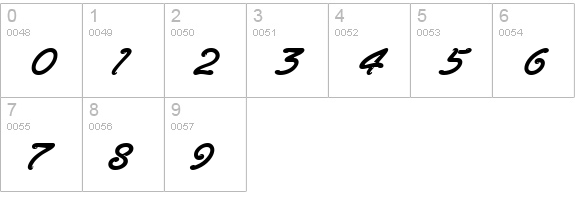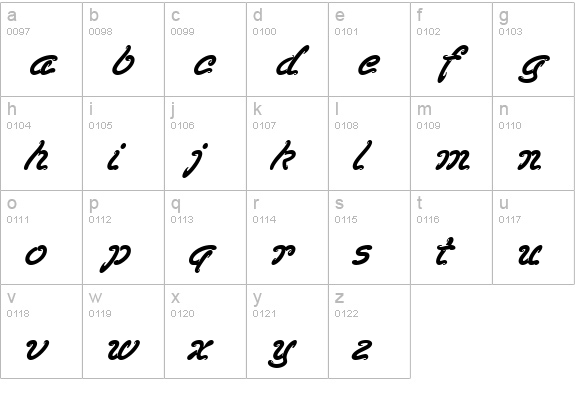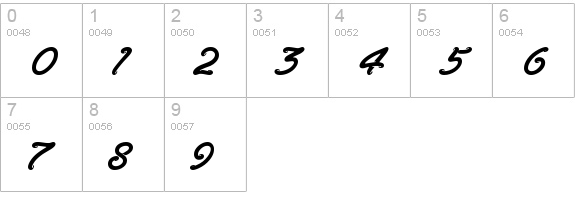
LasVegasD Font Details
Introducing LasVegasD, a stunning and versatile font that effortlessly captures the vibrant essence of the bustling city of Las Vegas. This font exudes a sense of energy, glamour, and excitement, making it the perfect choice for any design project that aims to capture the attention of its audience. LasVegasD is a meticulously crafted typeface, designed with meticulous attention to detail to ensure every character is visually captivating. Its bold and stylish letterforms are expertly balanced, allowing for seamless legibility while adding a touch of sophistication to any text. Whether you're creating eye-catching headlines, designing captivating logos, or crafting elegant invitations, LasVegasD is sure to make a lasting impression. One of the most appealing aspects of LasVegasD is that it is freely available to download at FontsMarket.com. This means that you can effortlessly enhance your design projects without breaking the bank. With LasVegasD, you have the freedom to explore endless creative possibilities, as this font seamlessly adapts to various design styles and applications. The versatility of LasVegasD extends beyond its captivating aesthetics. This font also offers a wide range of characters, including ligatures and alternate glyphs, allowing you to truly personalize your designs. Whether you're looking to create a vintage-inspired poster, a modern website, or a sleek branding project, LasVegasD provides the tools necessary to bring your vision to life. So why wait? Download LasVegasD today from FontsMarket.com and elevate your design projects to new heights. With its stunning visuals, versatile nature, and the added benefit of being free, LasVegasD is a font that will undoubtedly leave a lasting impression on both you and your audience.